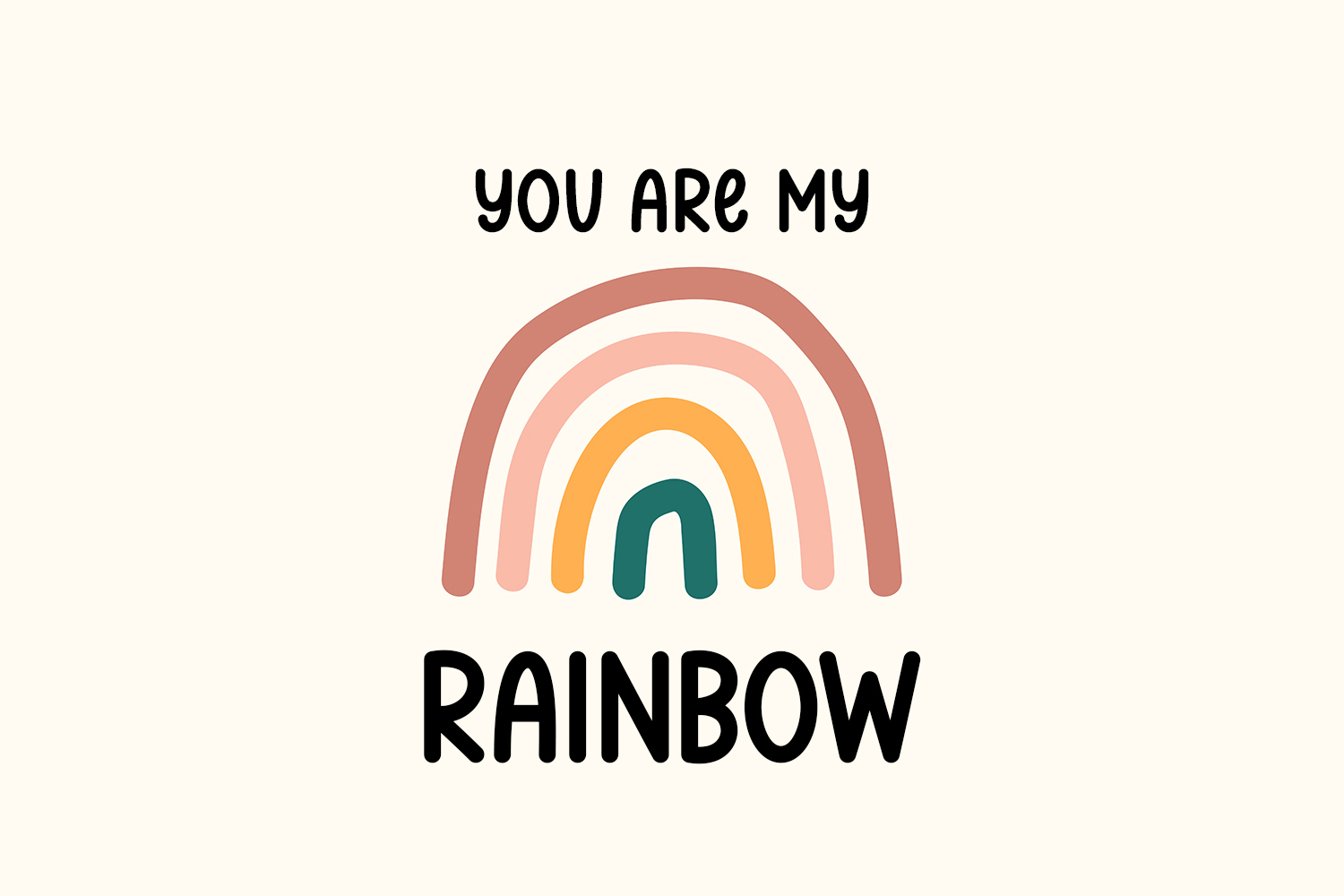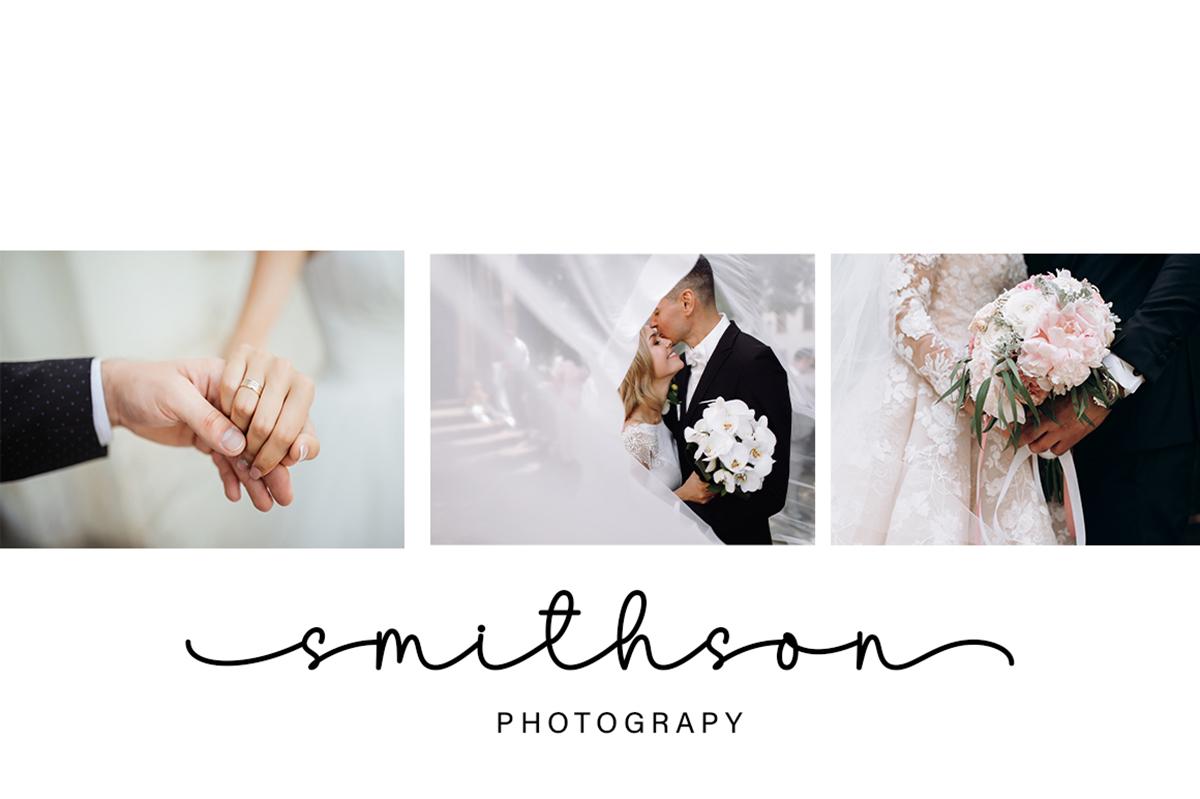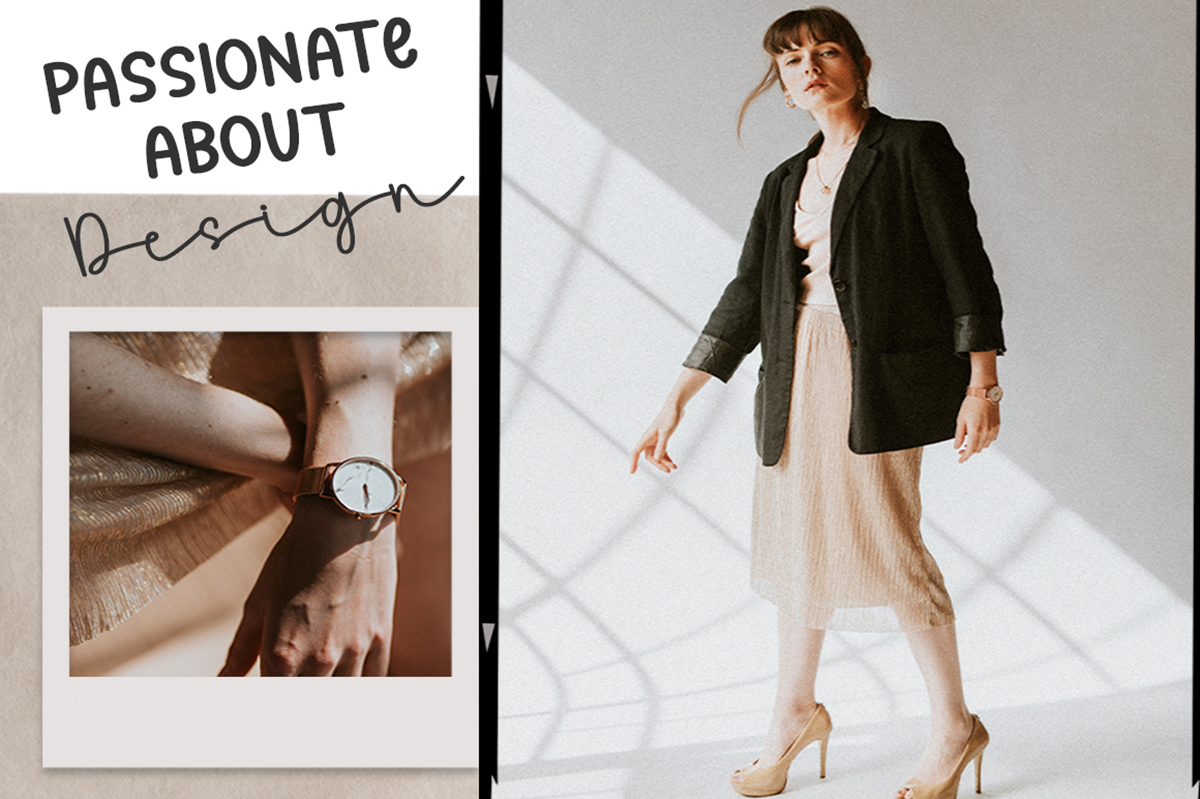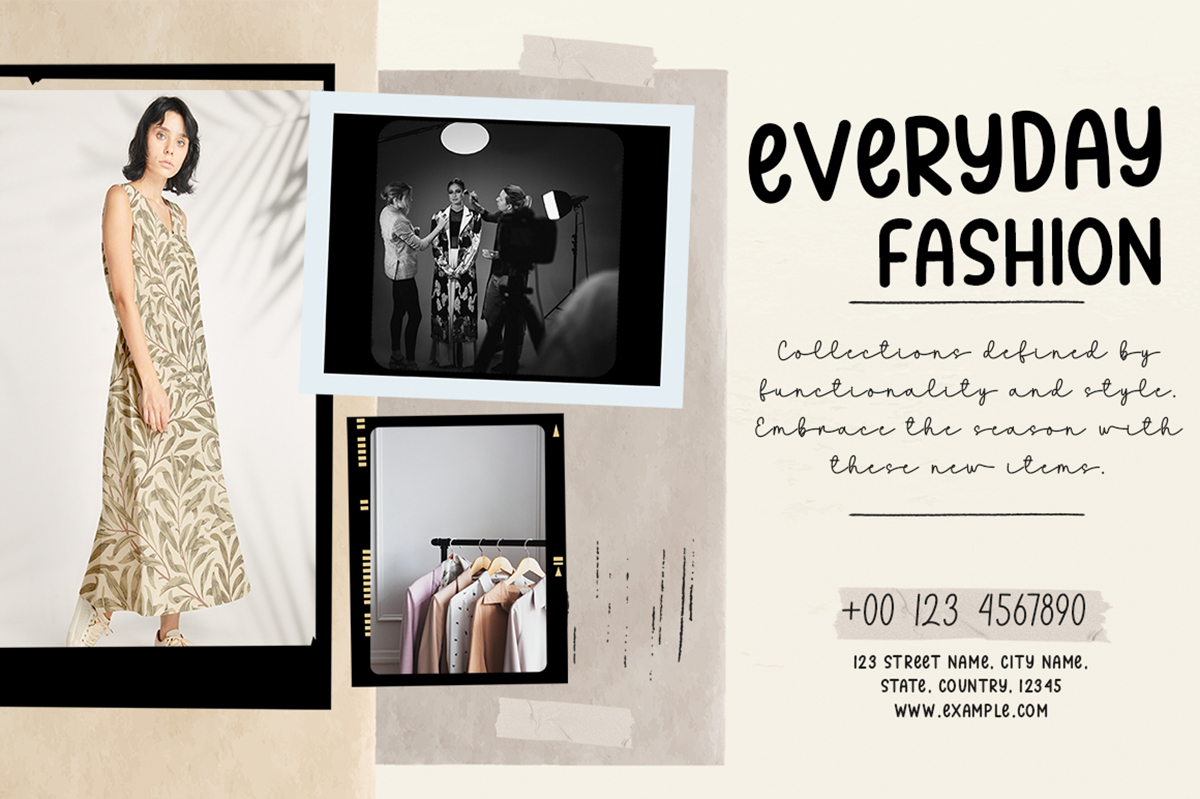
Rainbow Cupcake Free Font
Rainbow Cupcake Free Font is a stylish and delicate duo font (sans serif and script) suitable for a wide spectrum of applications. From greeting cards to headlines, this font will guarantee a romantic touch to each of your creations.